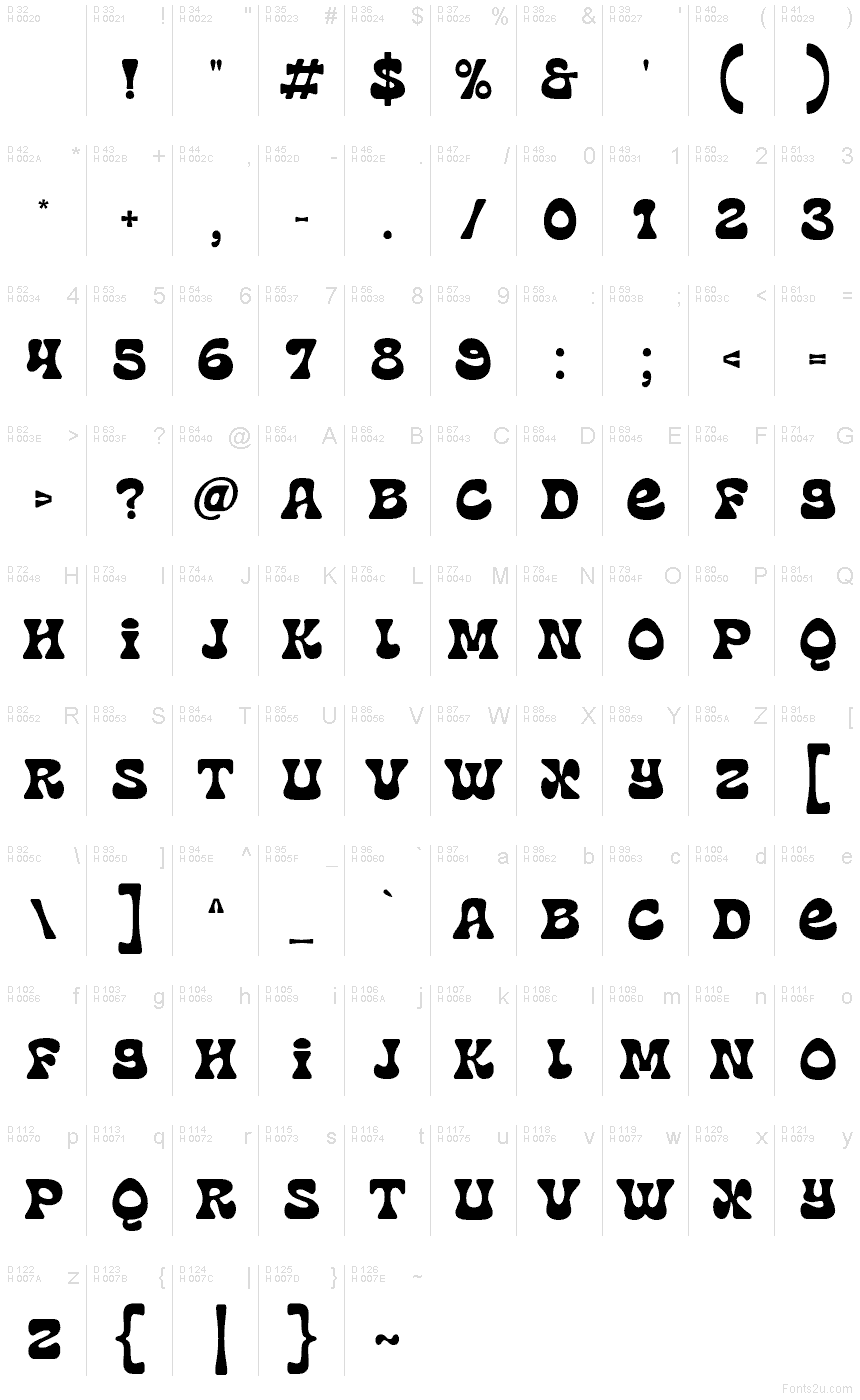
Lemon Funky
Lemon Funky font by HansCo is a bold expanded display typeface. It has a funky, groovy vibe with an uncommon design structure that makes it applicable for unusual and creative projects. The main element that dominates this font style is its curvy limitations and geometric style.
This free techno display font is perfect for posters, T-shirt designs, branding projects, cover designs, book layouts, album art, typography posters, advertising banners and flyers design. Use it also in social media posts or website graphic design to attract attention with your incredible work!